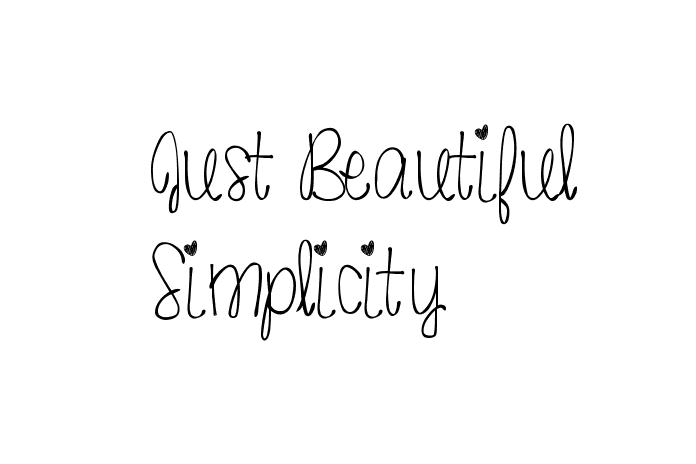
Storia Regular Font
Storia Regular Font is a modern Script Calligraphy Font, suitable for any projects such as logos, branding projects, homeware designs, product packaging, mugs, quotes, posters, shopping bags, t-shirts, book covers, name cards, invitation cards, greeting cards, label, photography, watermark, special events, and all your other lovely projects that need a beautiful script taste.
Font name Storia Regular Font
Font designer Annas Alam Yahya
Font Family Storia
Typeface classification Calligraphy,Script